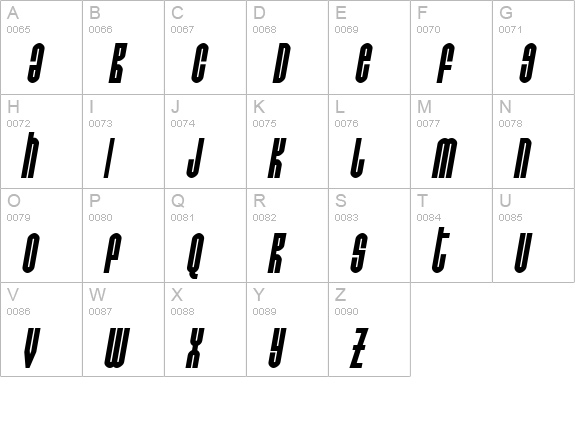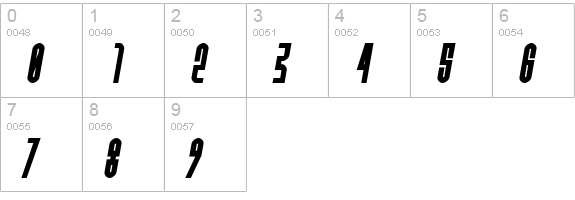
Do not eat this Fat Italic Font Details
Do not eat this Fat Italic is a distinctive, italic variant in the Do typeface family \xE2\x80\x94 well suited to design and typography projects.
Introducing the captivating and modern "Do not eat this Fat Italic" font, a versatile typeface that is sure to make a statement in any design project. This unique font features bold, stylized lettering with a touch of elegance, perfect for adding a touch of sophistication to your creations. Do not eat this Fat Italic font is designed to stand out and grab attention, making it ideal for headlines, branding, posters, and more. Its sleek and stylish appearance will instantly elevate the look of any project, giving it a professional and polished finish. Best of all, this stunning font is completely free to download at FontsMarket.com, making it easy to access and use in your designs. Don't miss out on the opportunity to add this eye-catching font to your collection and take your projects to the next level. Download Do not eat this Fat Italic font today and unleash your creativity!